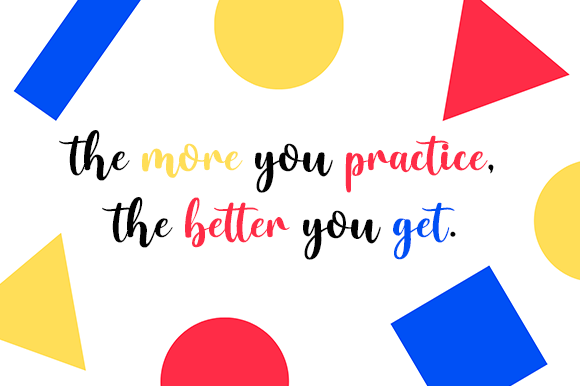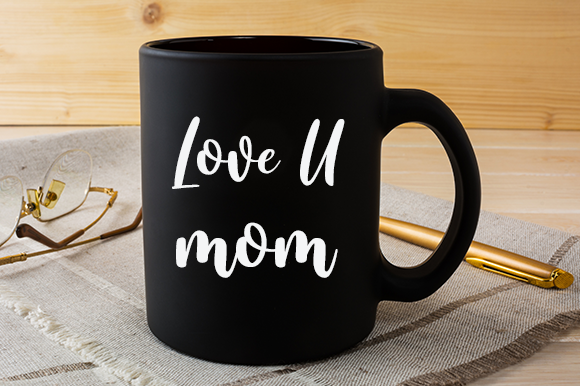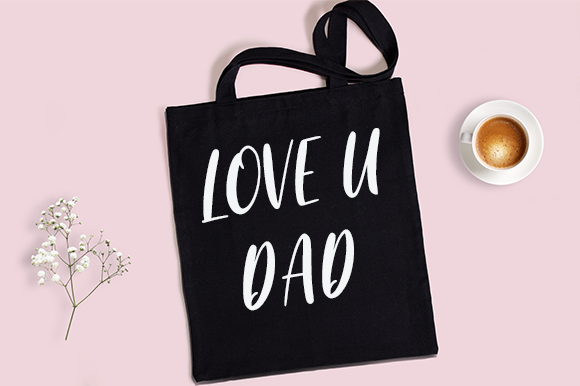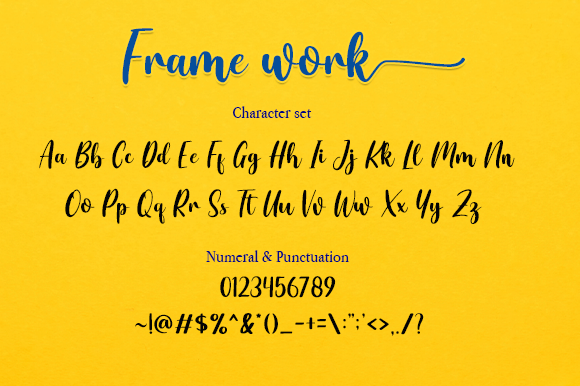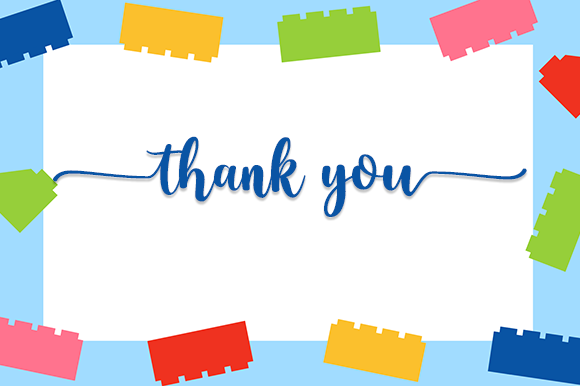
Introducing Frame Work Font: Elevate Your Designs with Luxury and Elegance
Are you tired of using the same old fonts in your design projects? Do you want to add a touch of luxury and sophistication to your creations? Look no further than Frame Work Font, a splendid, light lettered handwritten font that is sure to make your designs stand out. With its unique feel and stunning impact, Frame Work Font is the perfect choice for designers and crafters looking to elevate their work.
What Makes Frame Work Font Special?
Frame Work Font is a beautifully crafted font that boasts a range of characteristics that set it apart from other fonts. Here are just a few reasons why Frame Work Font is a must-have for any designer or crafter:
• Unique Feel: Frame Work Font has a distinctive, handwritten feel that adds a personal touch to any design project. Its light lettering gives it an airy, elegant feel that is perfect for creating sophisticated designs.
• Stunning Impact: When used in a design project, Frame Work Font is sure to make a statement. Its unique feel and luxurious look make it perfect for creating eye-catching designs that grab attention.
• PUA Encoded: Frame Work Font is PUA (Private Use Area) encoded, which means that you can access all of the amazing glyphs and ligatures with ease. This makes it easy to create complex designs and add extra flair to your work.
How to Use Frame Work Font in Your Designs
Frame Work Font is incredibly versatile and can be used in a wide range of design projects. Here are just a few ideas to get you started:
• Branding and Logo Design: Use Frame Work Font to create stunning logos and branding materials that exude luxury and sophistication.
• Wedding and Event Design: Add a touch of elegance to your wedding and event designs with Frame Work Font. Its light lettering and unique feel make it perfect for creating beautiful invitations, programs, and more.
• Packaging Design: Use Frame Work Font to create eye-catching packaging designs that stand out on store shelves.
Tips for Getting the Most Out of Frame Work Font
To get the most out of Frame Work Font, here are a few tips to keep in mind:
• Experiment with Different Sizes: Frame Work Font looks great in a range of sizes, from small and delicate to large and bold. Experiment with different sizes to find the one that works best for your design.
• Play with Ligatures: Frame Work Font’s PUA encoding makes it easy to access a range of ligatures and glyphs. Experiment with different combinations to add extra flair to your designs.
• Pair it with Other Fonts: Frame Work Font pairs beautifully with other fonts. Try pairing it with a bold, sans-serif font for a striking contrast.